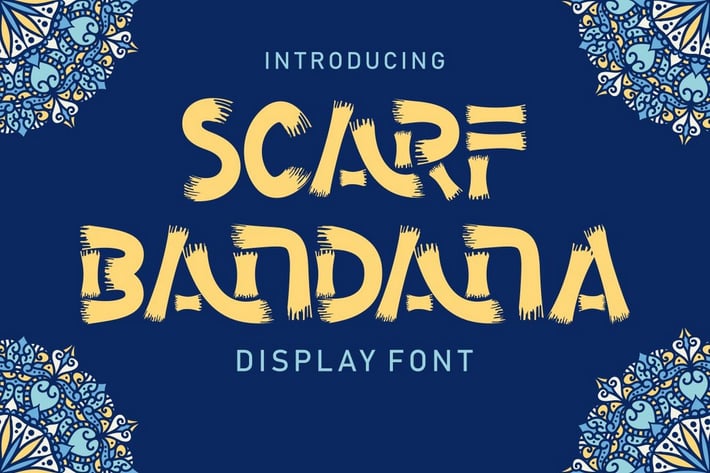
Scarf Bandana - Display Font
Scarf Bandana
Scarf Bandana is a Brush Display Font. These fonts can be categorized into brush and display fonts. With a unique character, this font will make your project stand out. Suitable for logos, branding, crafting, svg, book covers, posters, headlines, labels, and more. This font also has 92 ligatures, so it will make this font more interesting and unique.
This font is also support multi language.